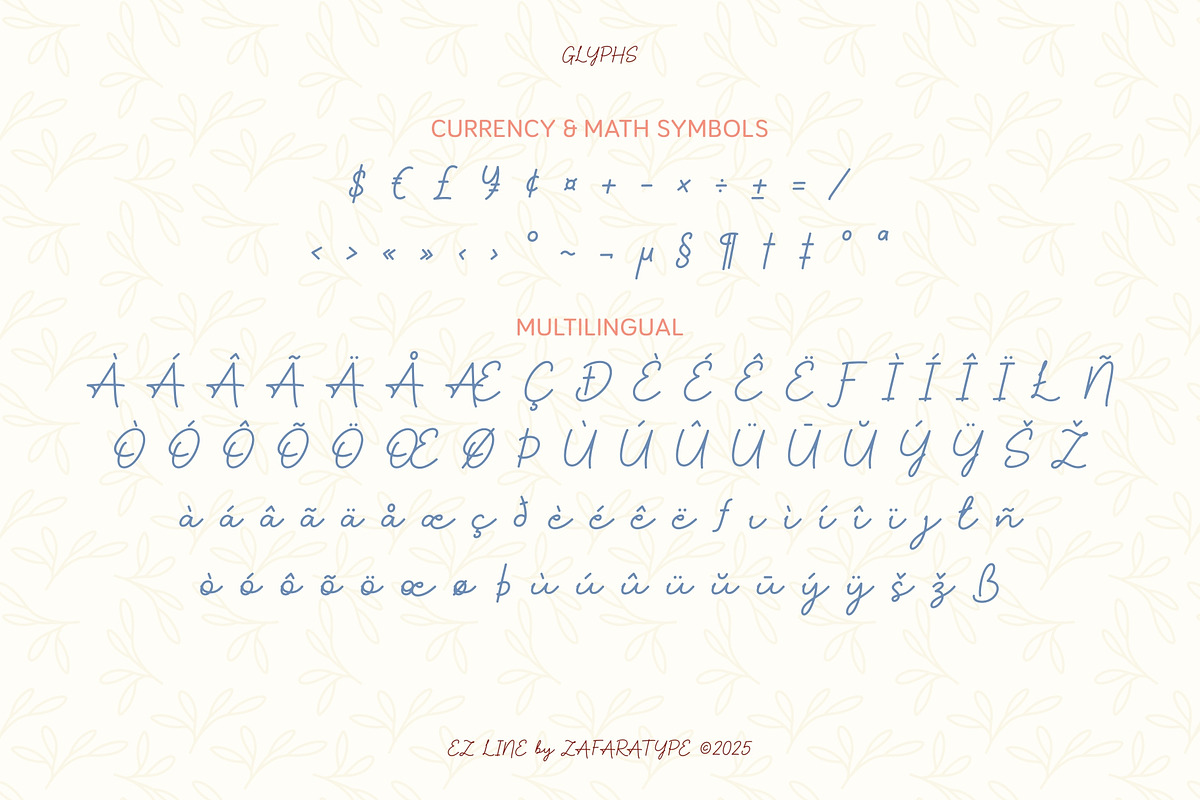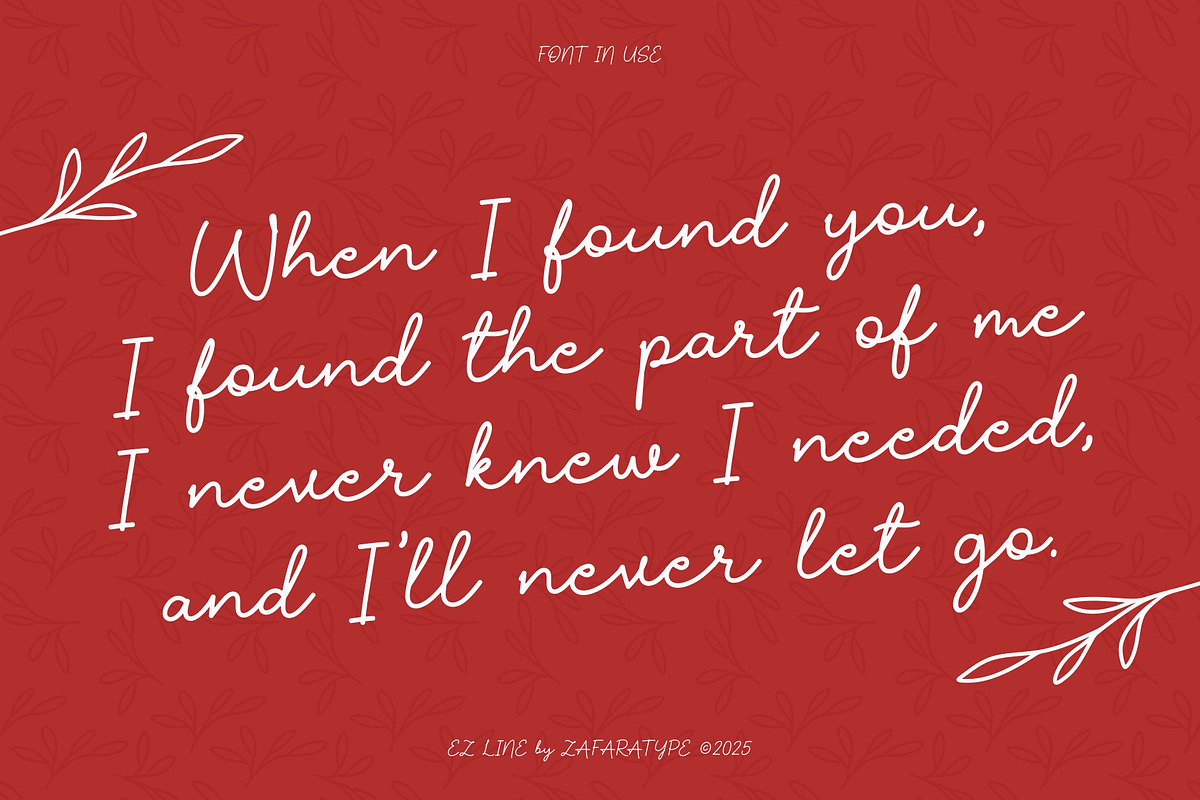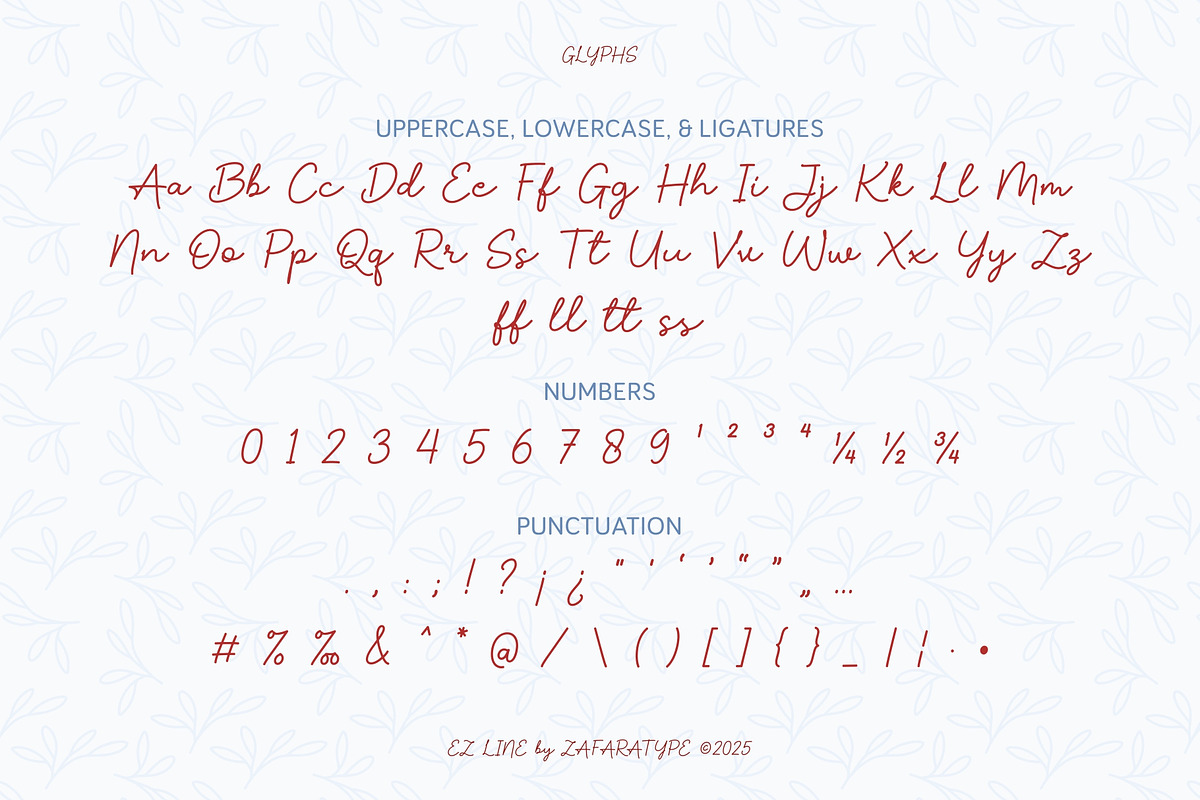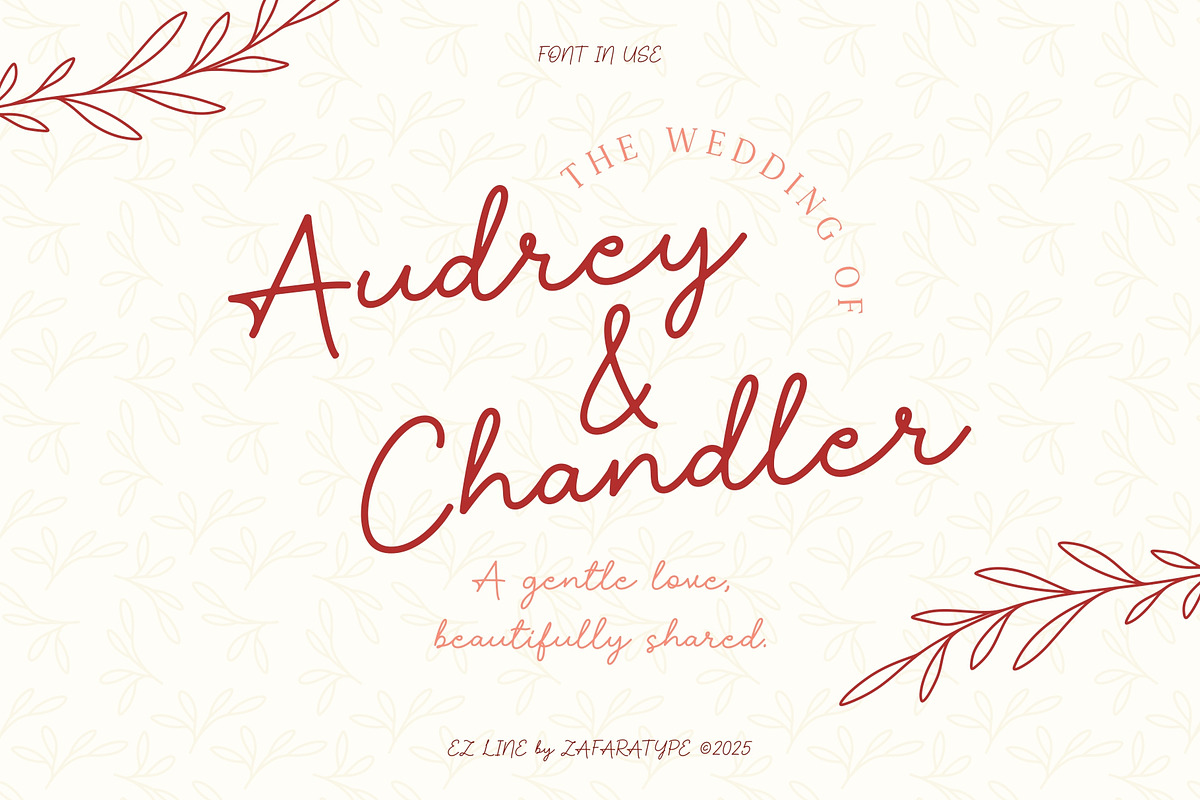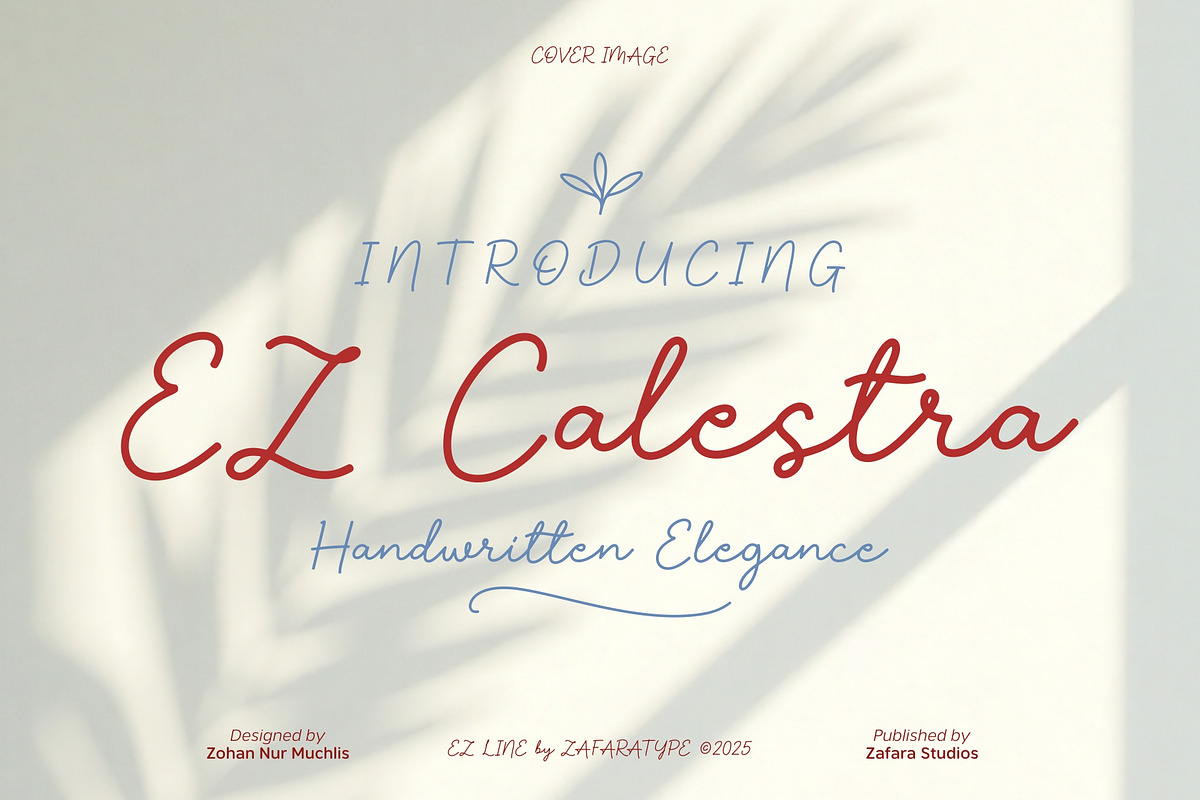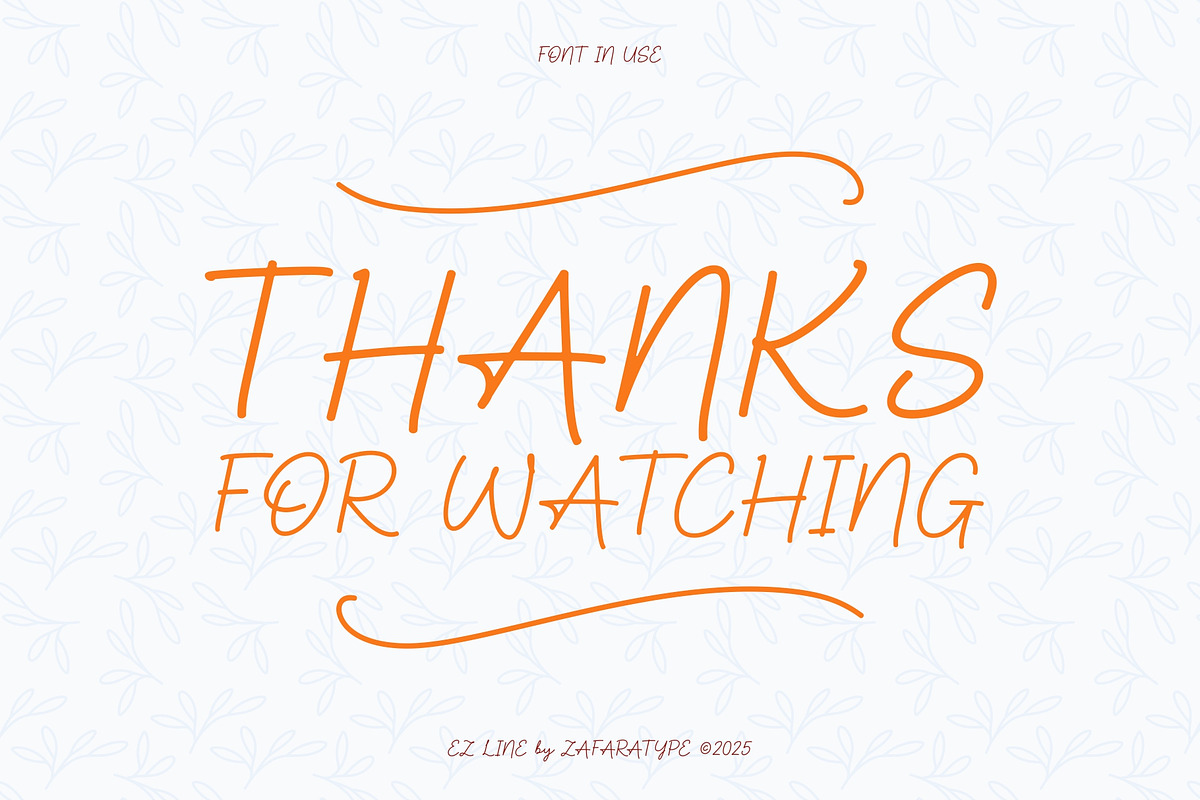
EZ Calestra
EZ Calestra is a soft and romantic handwritten script that flows with natural grace and effortless charm. Designed with delicate strokes and gentle curves, it captures the beauty of handwriting in its purest form, elegant, emotional, and timeless.
Each letter is drawn with a smooth rhythm that feels both free and refined, making it perfect for projects that call for a personal and sophisticated touch. From heartfelt wedding invitations to branding, quotes, and stationery, EZ Calestra adds warmth and authenticity to every composition.
The details:
- 247 glyphs: Uppercase, lowercase, ligatures, numbers & punctuation, symbols & accents, multilingual support
- 25 languages: Afrikaans, Albanian, Basque, Catalan, Danish, Dutch, English, Estonian, Faroese, Filipino, Finnish, French, Galician, German, Icelandic, Indonesian, Irish, Italian, Malay, Norwegian Bokmål, Portuguese, Spanish, Swahili, Swedish, Zulu